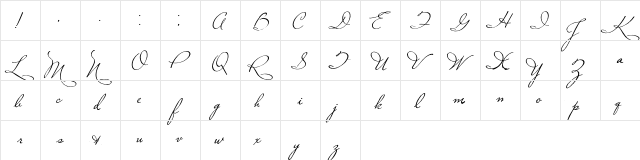
Plaster of Paris Regular
| Foundry | Paulo W |
Design Context for Plaster of Paris Typeface
Plaster of Paris is a composed and adaptable typeface that performs quietly and consistently across a wide range of design contexts.